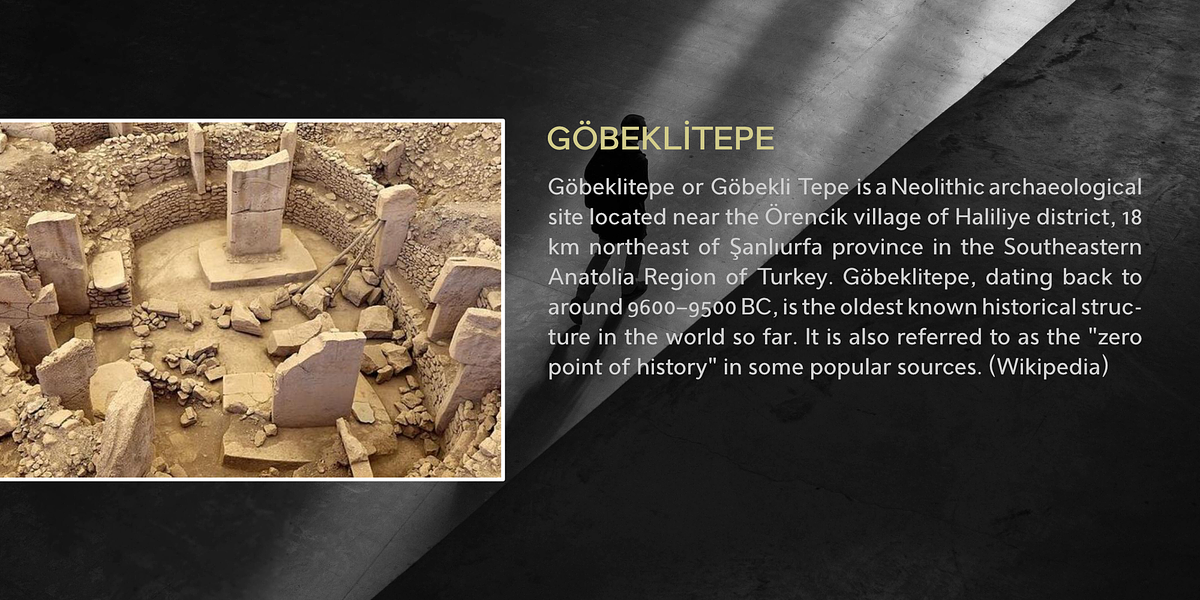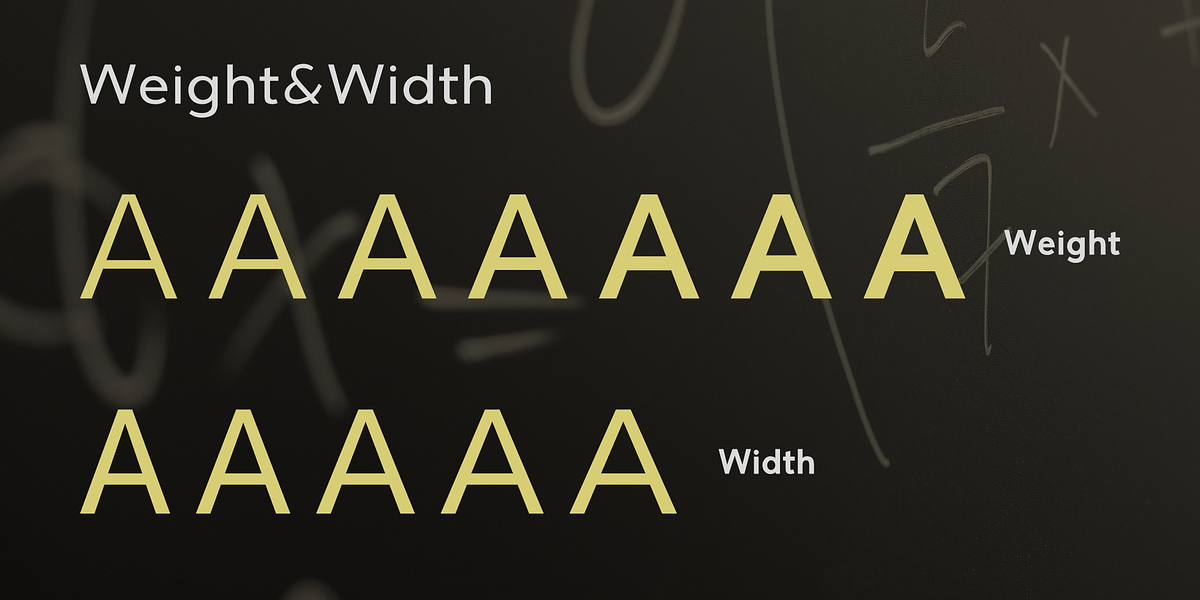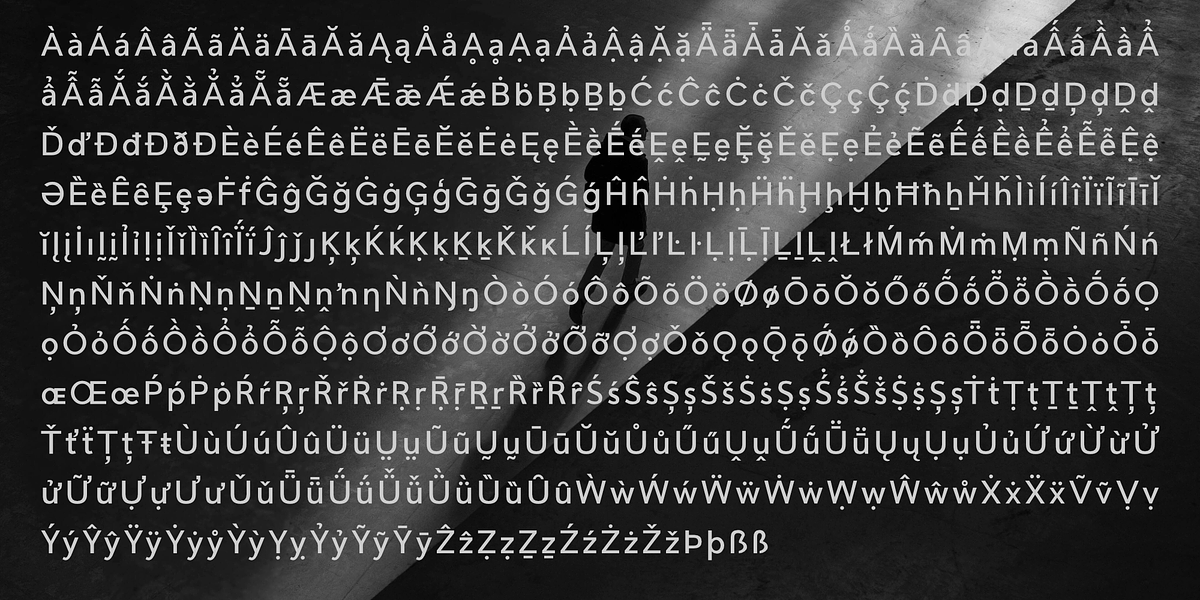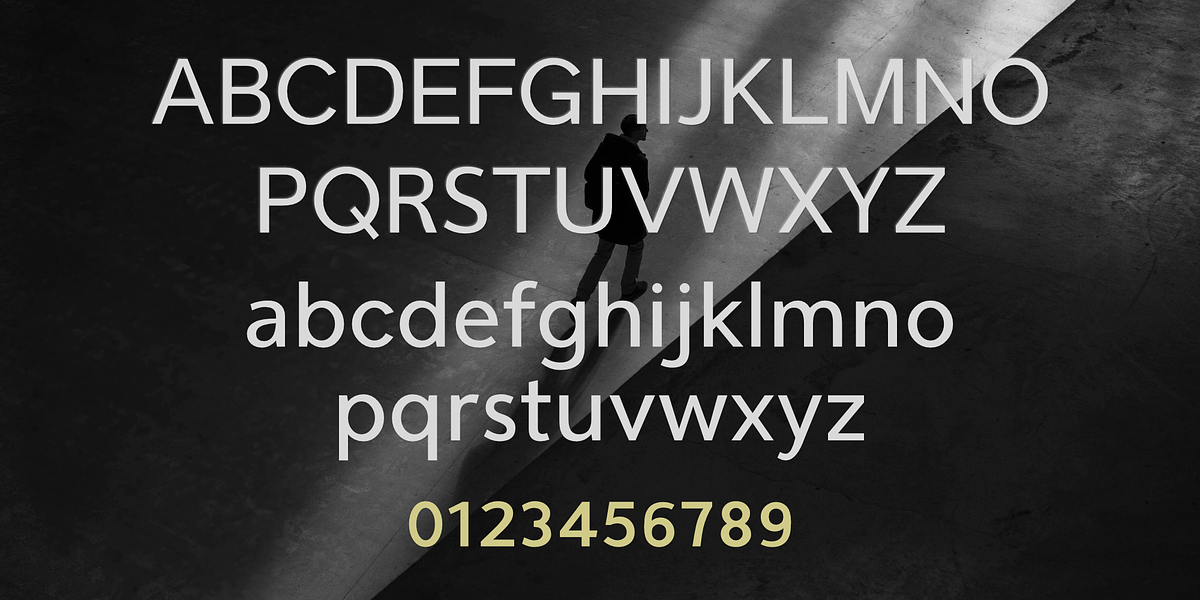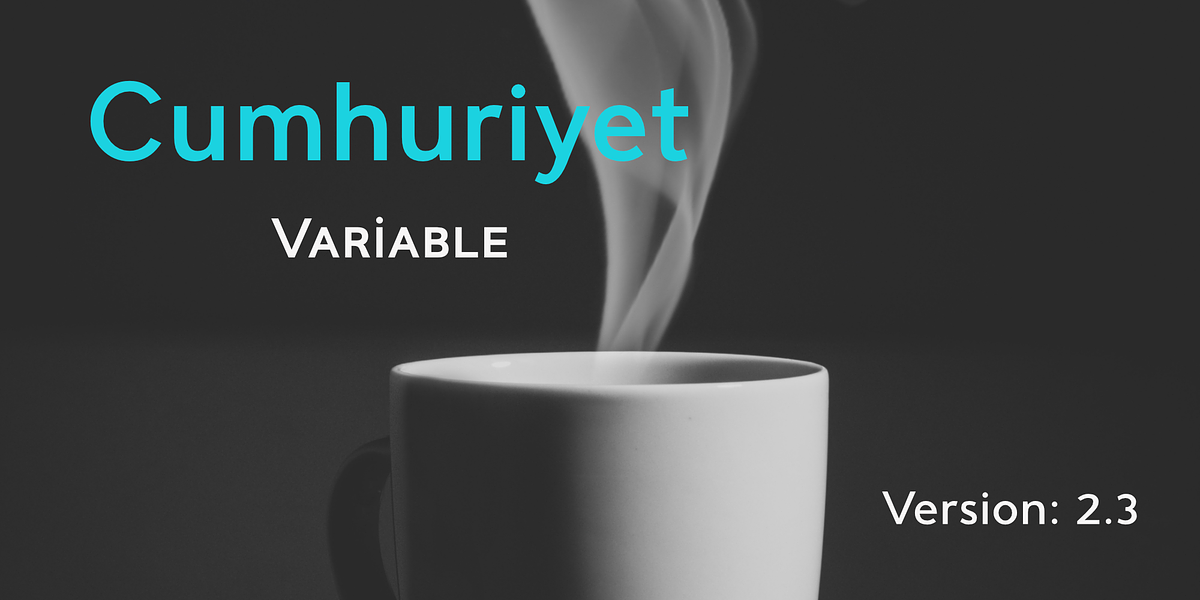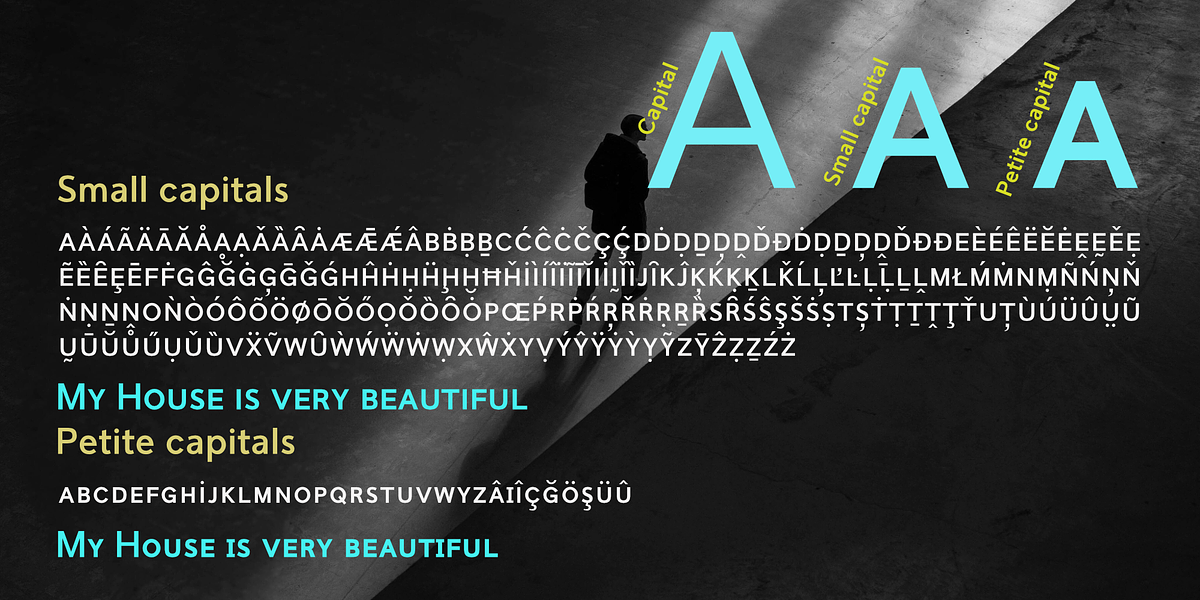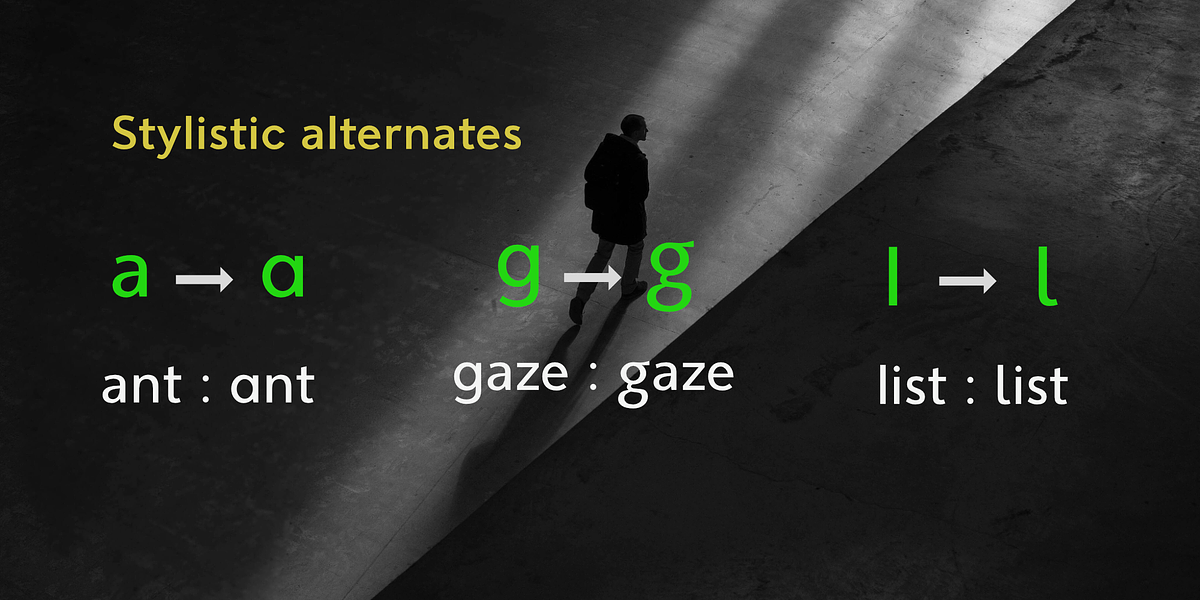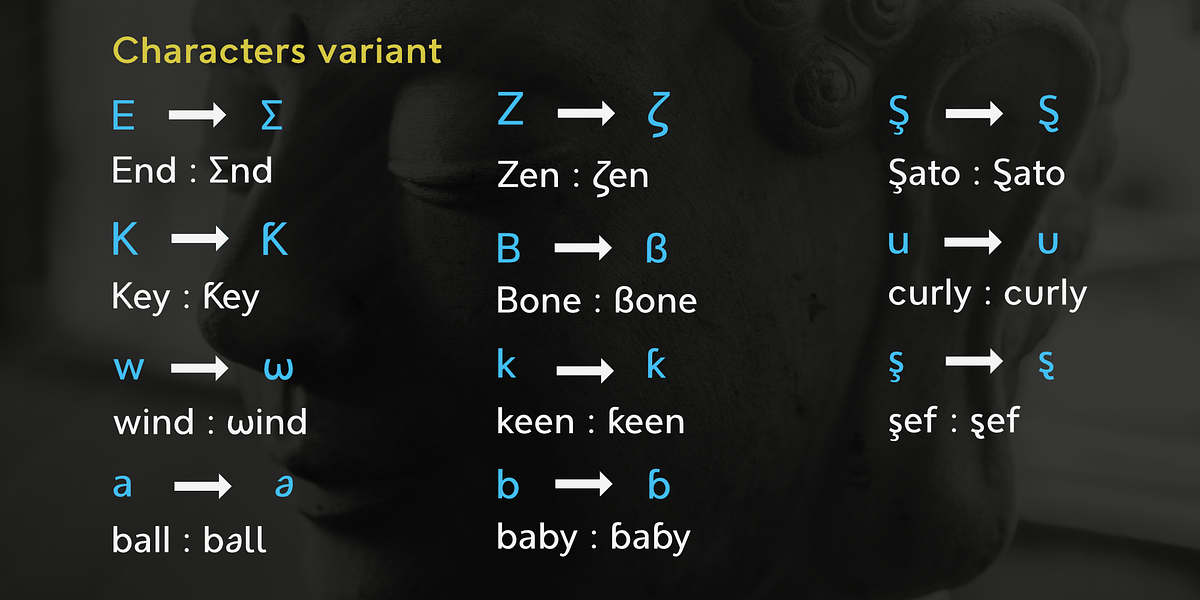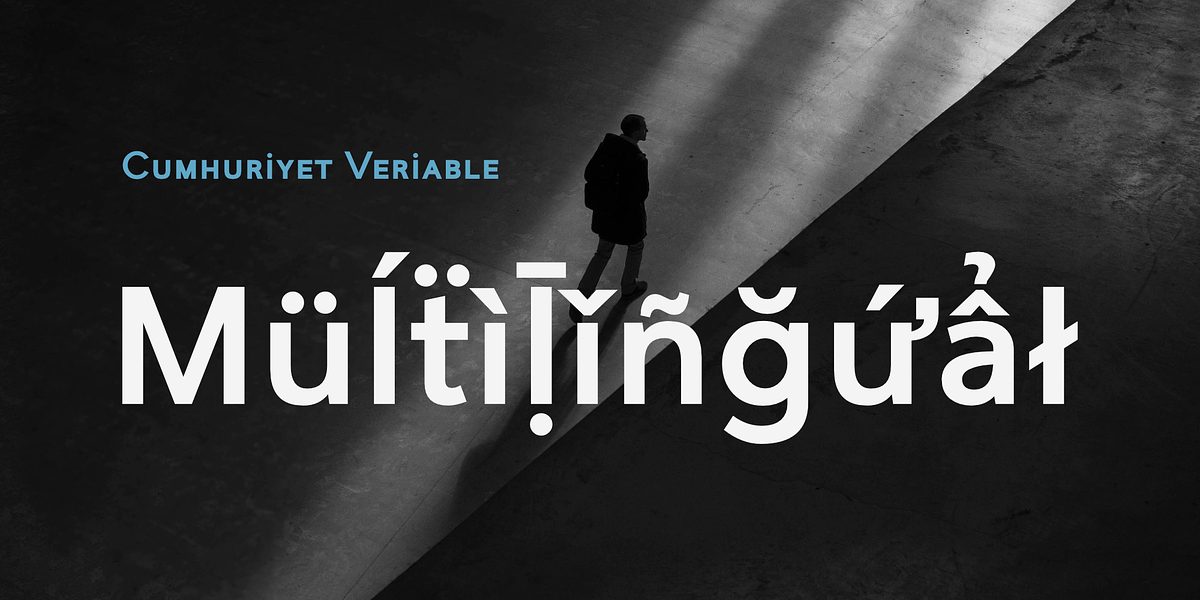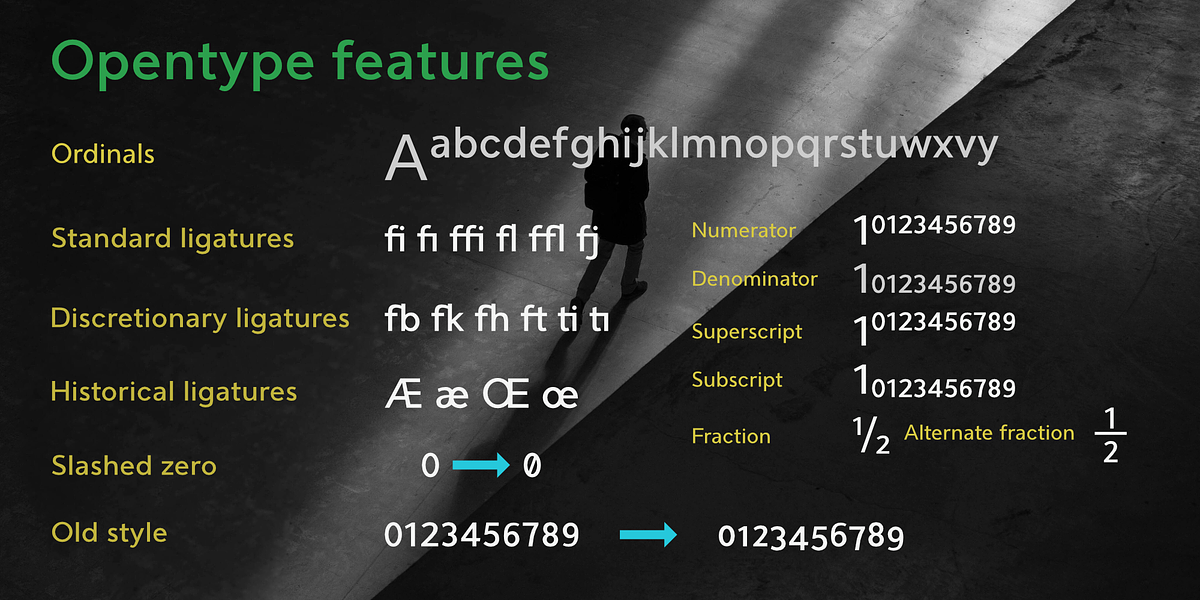
Cumhuriyet VF
Cumhuriyet Variable is a modern geometric sans-serif font designed for versatility. It features adjustable weight, width, and slant, allowing for millions of unique variations through its three axes. The font includes refinements like kerning, tracking, and leading adjustments for improved readability. Cumhuriyet Variable also offers numerous OpenType features, such as stylistic alternatives and character variations, further expanding its typographic possibilities.